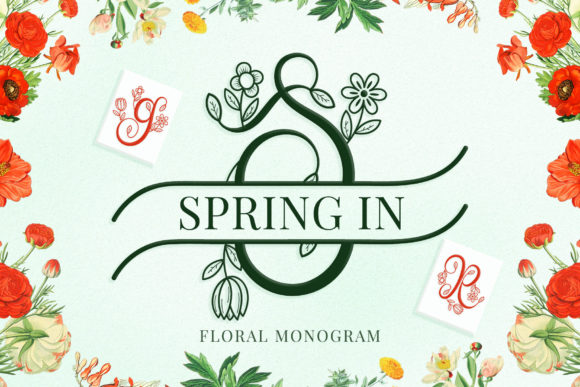
Adorn your designs with the delightful charm of Spring in Monogram Font, a captivating decorative typeface lovingly crafted by airotype. Inspired by the enchanting essence of springtime, this font exudes an authentic flair that will transform your creations into captivating masterpieces.
Immerse yourself in the beauty of Spring in Monogram Font, where each letter dances with graceful curves and delicate flourishes. Its versatility knows no bounds, making it the perfect choice for a myriad of spring-themed projects, from whimsical invitations to charming home décor.
Whether you're designing for personal use or creating enchanting products for your customers, Spring in Monogram Font will infuse your creations with a touch of magic and warmth. Its enchanting aura will evoke a sense of joy and wonder, making your designs truly unforgettable.